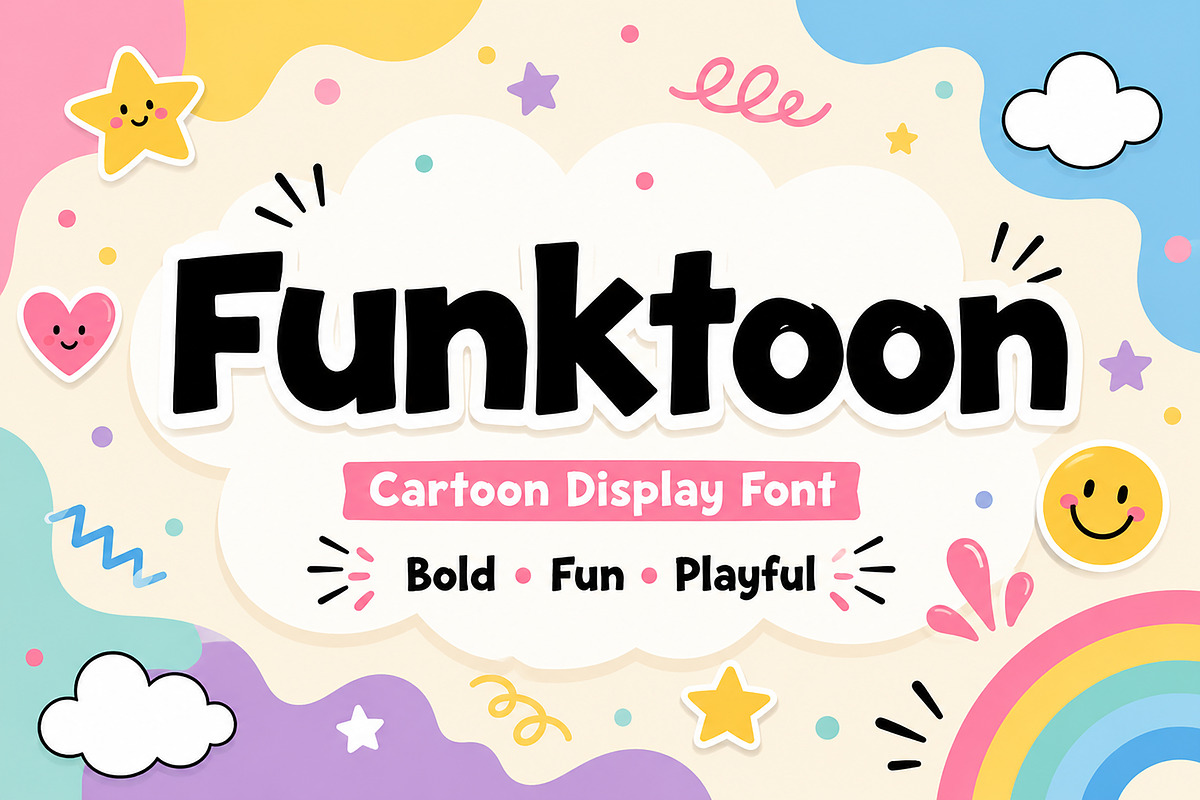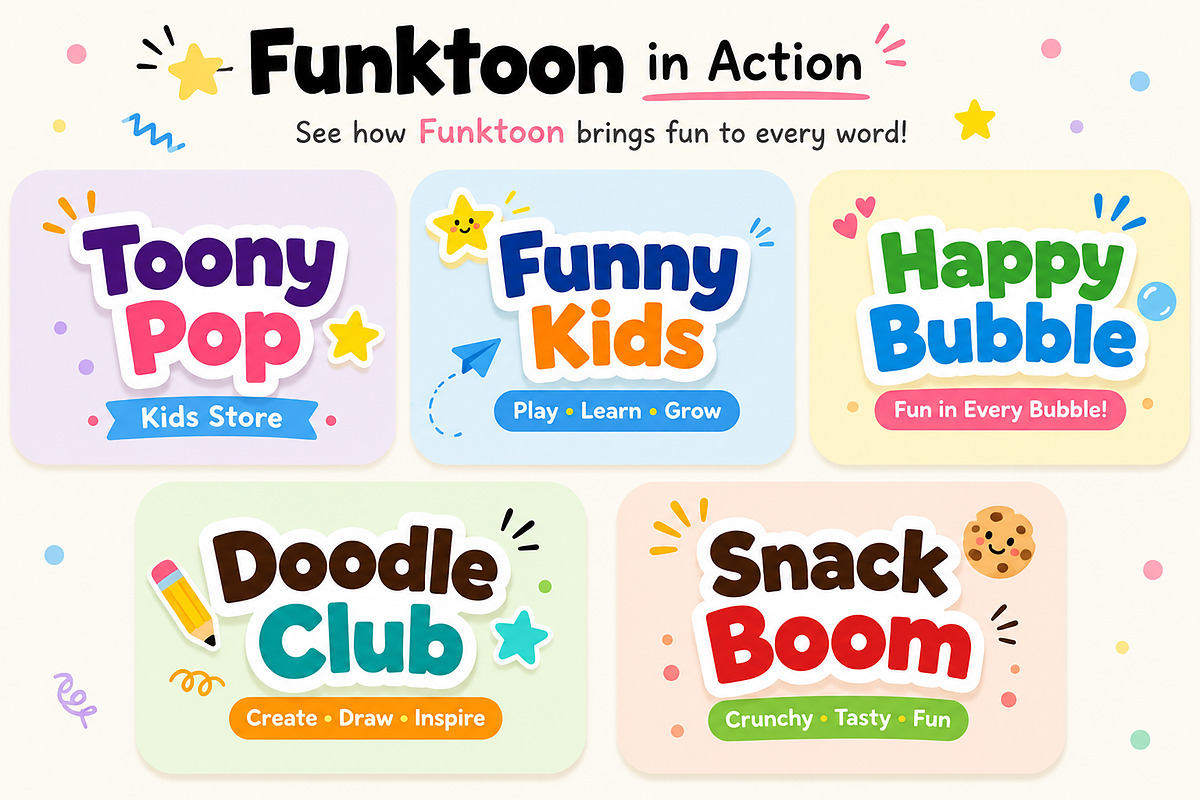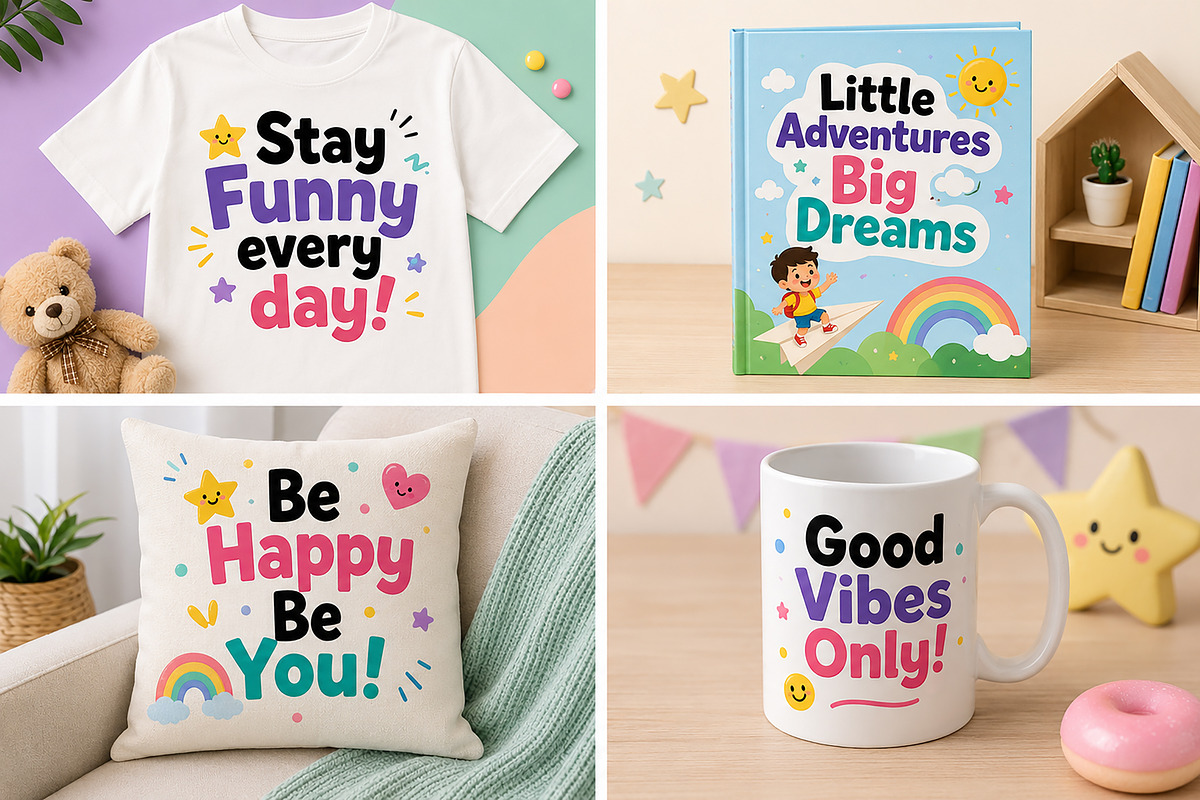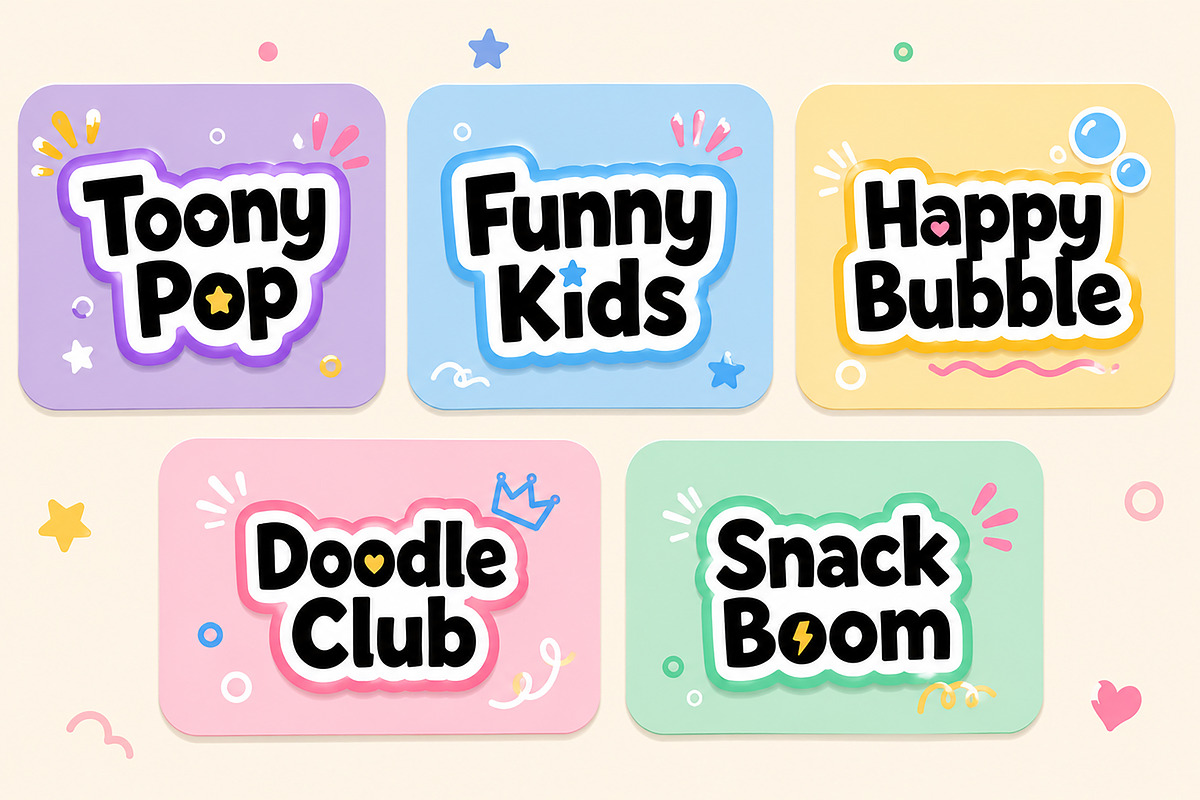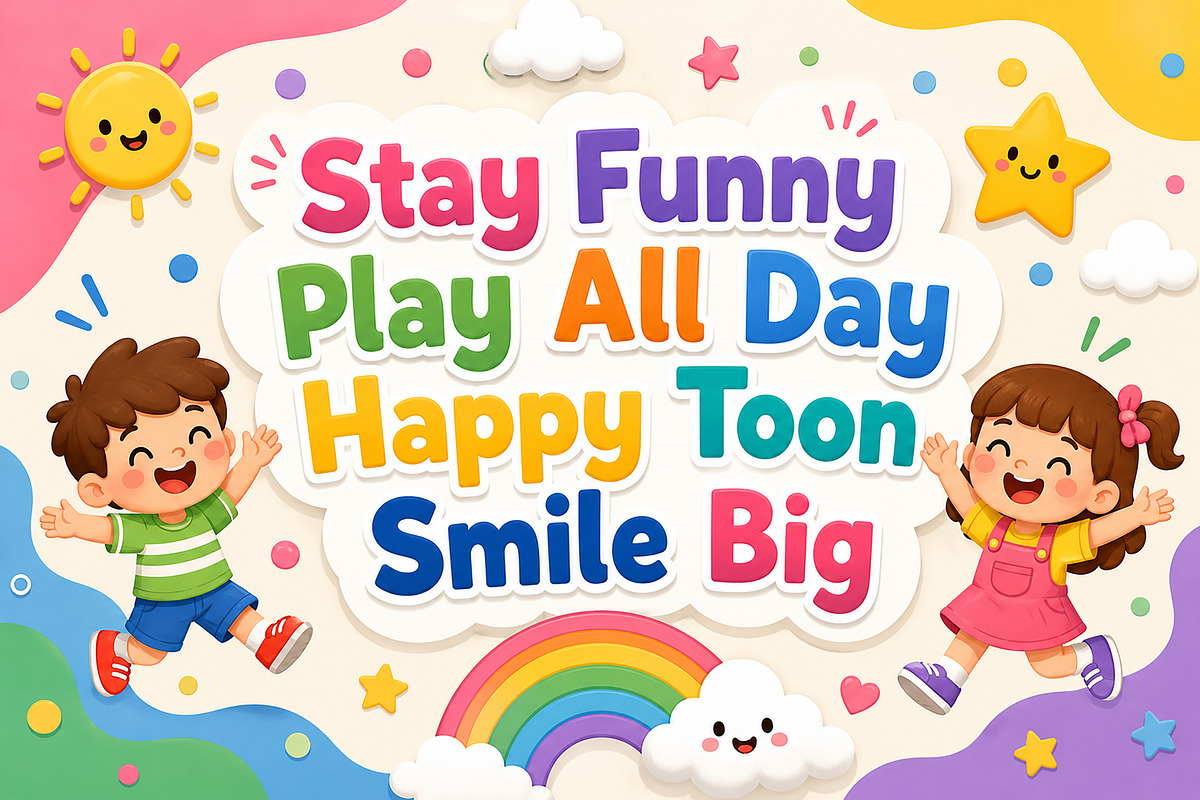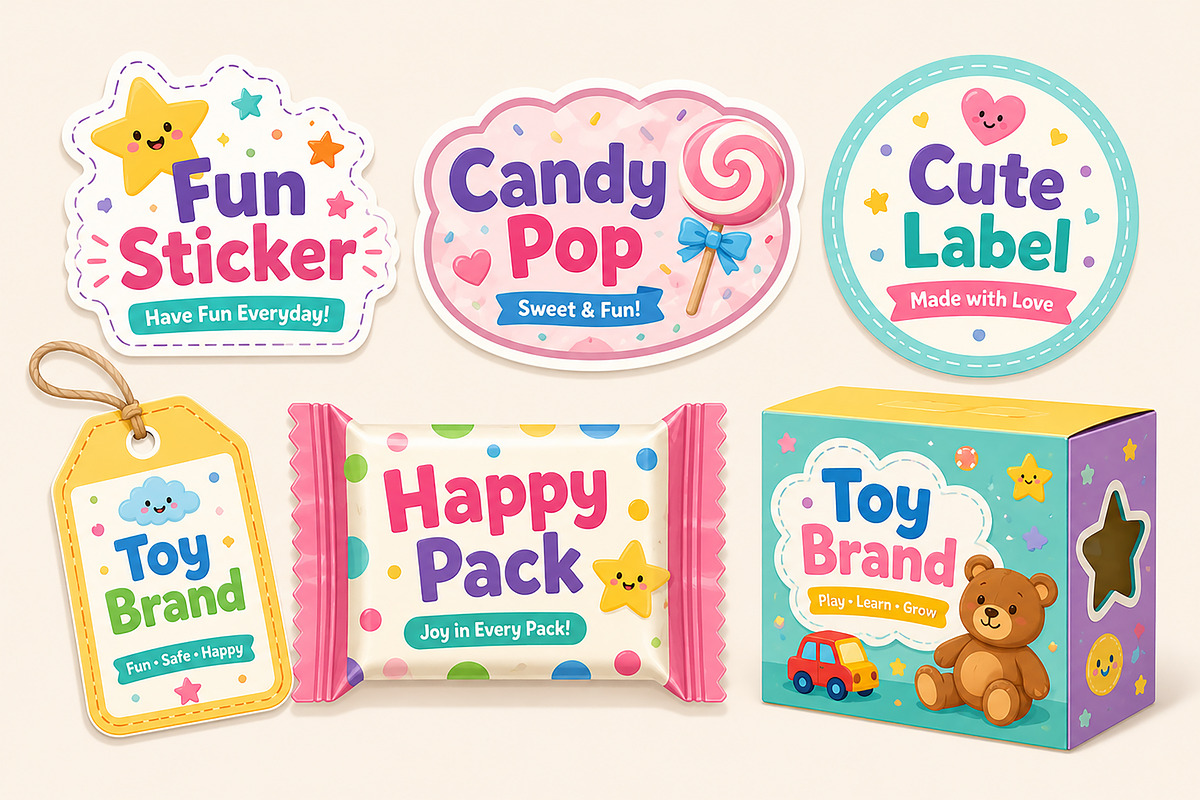
Funktoon – Cartoon Display Font
Description
Funktoon is a bold, playful, and energetic cartoon display font designed to bring joy and personality to every project. With its chunky letterforms, rounded edges, and fun hand-crafted style, Funktoon instantly creates a cheerful and friendly atmosphere that stands out in both print and digital designs.
Perfect for children's products, playful branding, colorful packaging, and eye-catching headlines, this font delivers a fun cartoon aesthetic while remaining highly readable. Whether you're designing a kids' book cover, toy packaging, stickers, party invitations, YouTube thumbnails, or social media graphics, Funktoon adds a lively and memorable touch.
Its bold character shapes make it ideal for large titles and logos, helping your designs grab attention instantly.
Kids Branding
Cartoon Logos
Children's Books
Toy Packaging
Stickers
Product Labels
Posters
T-Shirts
Mugs
Pillows
Party Invitations
Birthday Designs
Classroom Materials
Nursery Decor
YouTube Thumbnails
Cricut & Silhouette Projects
Printable Designs
Creative Crafts
Bring your creative ideas to life with Funktoon—the perfect cartoon display font for fun, colorful, and unforgettable designs!